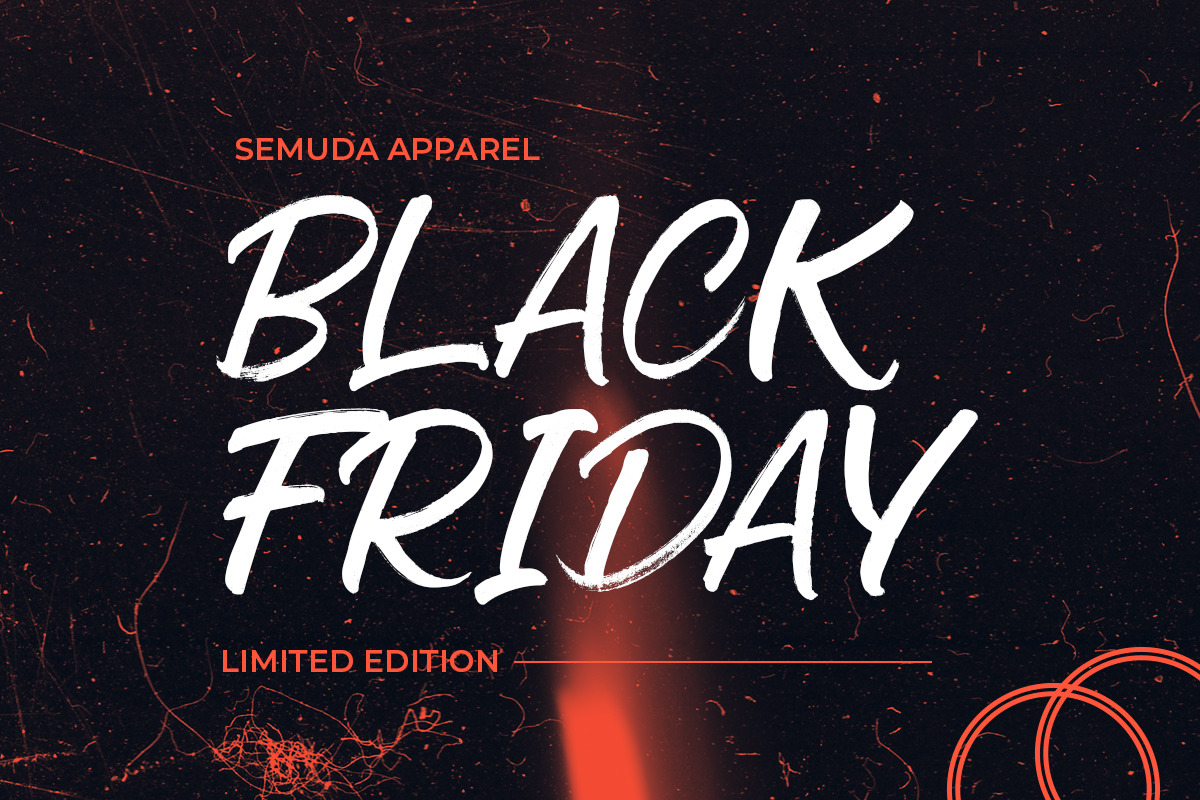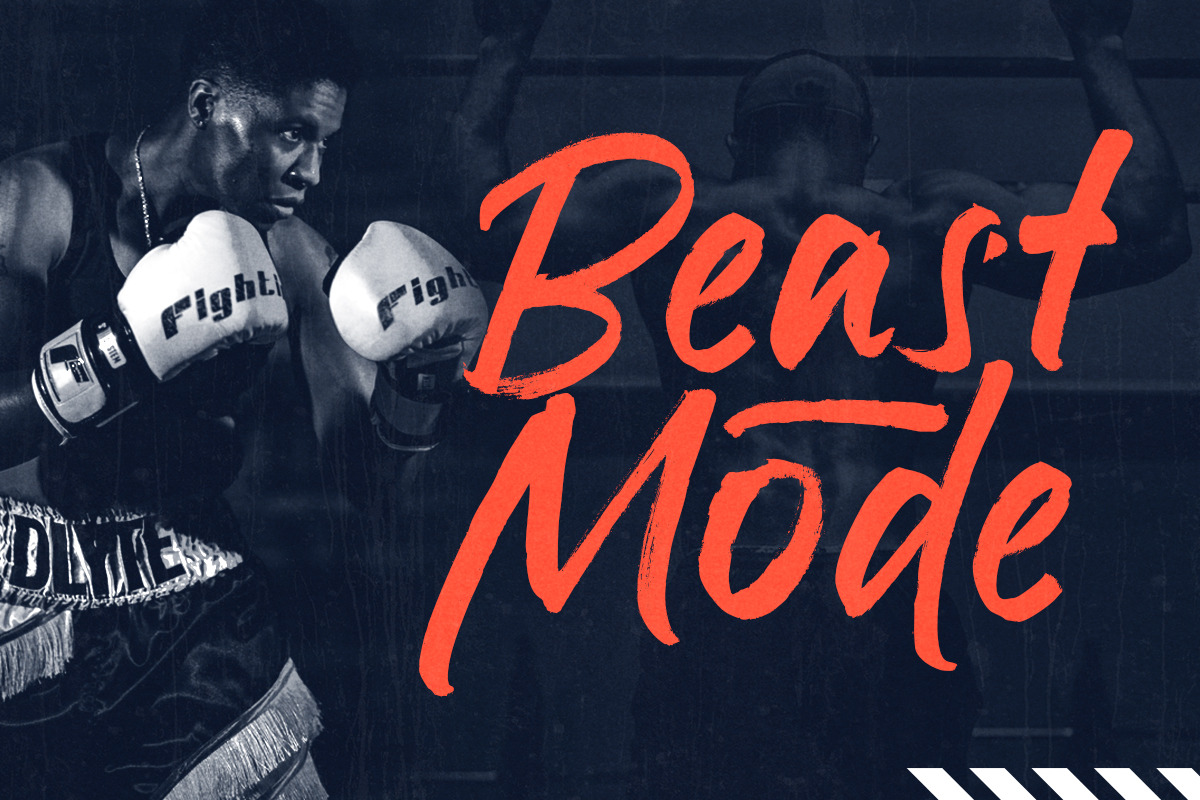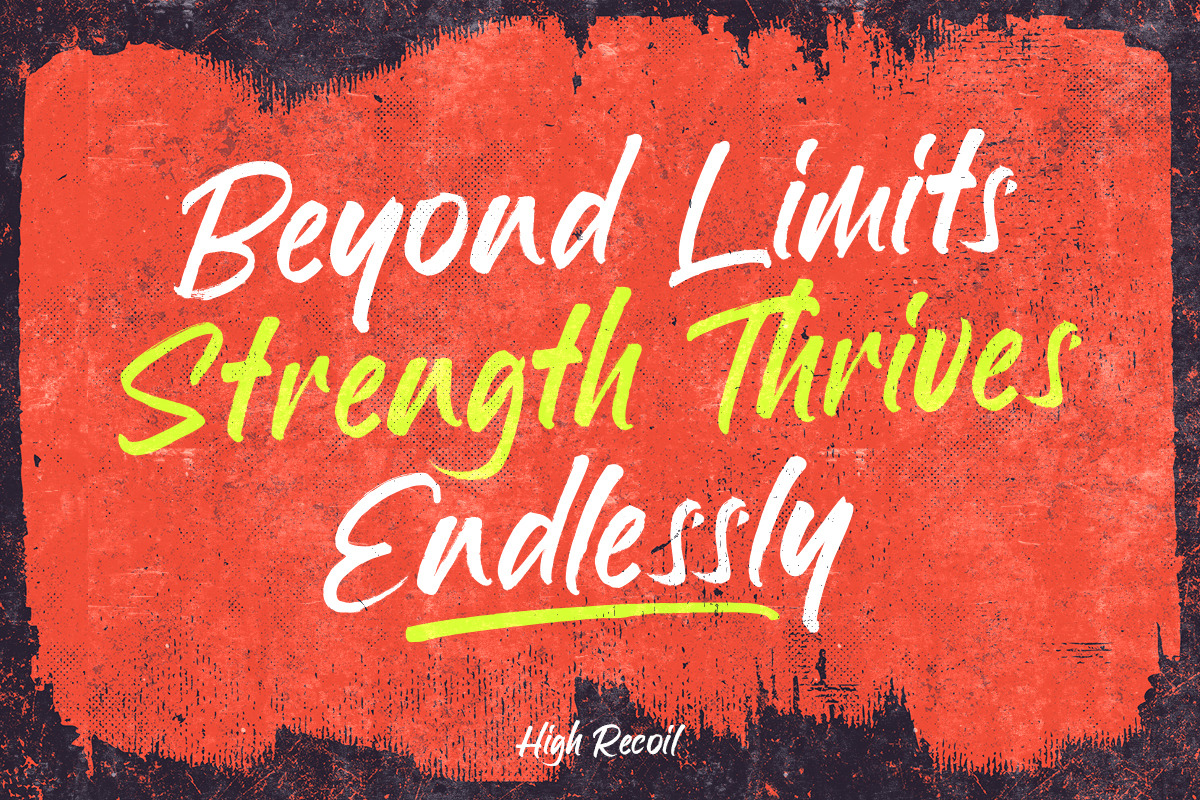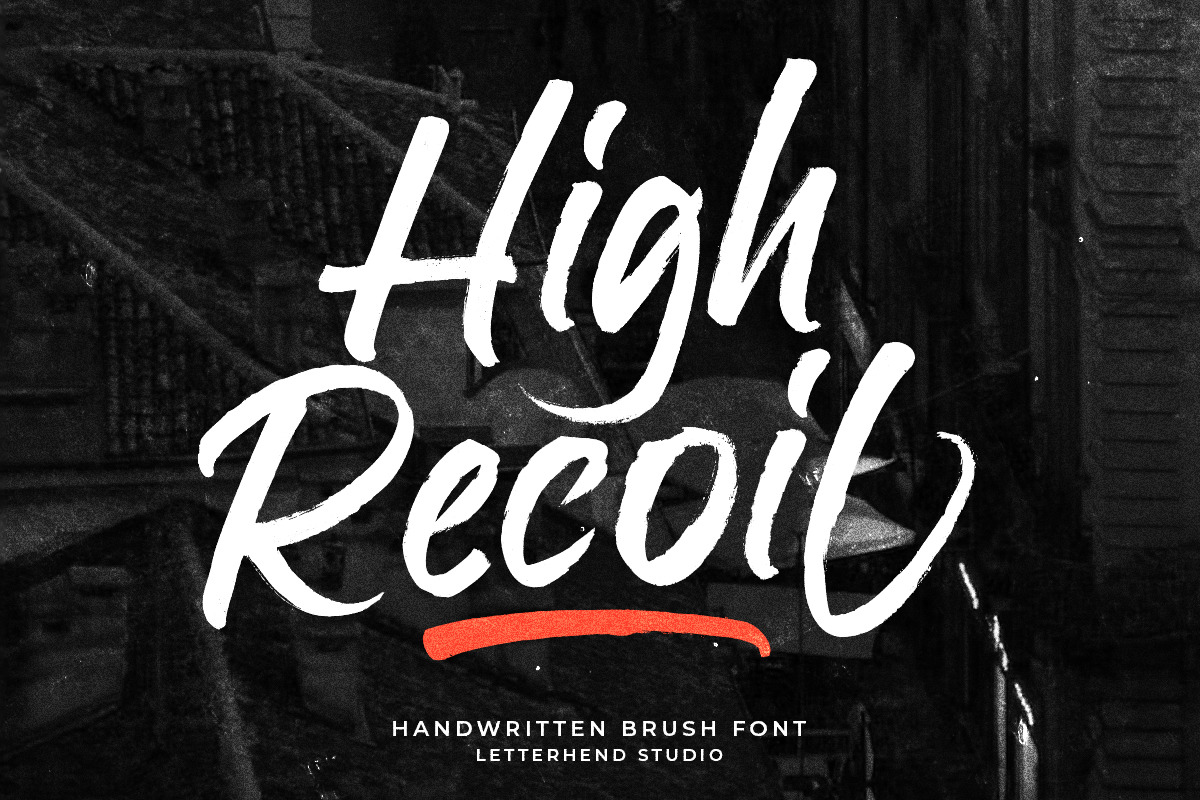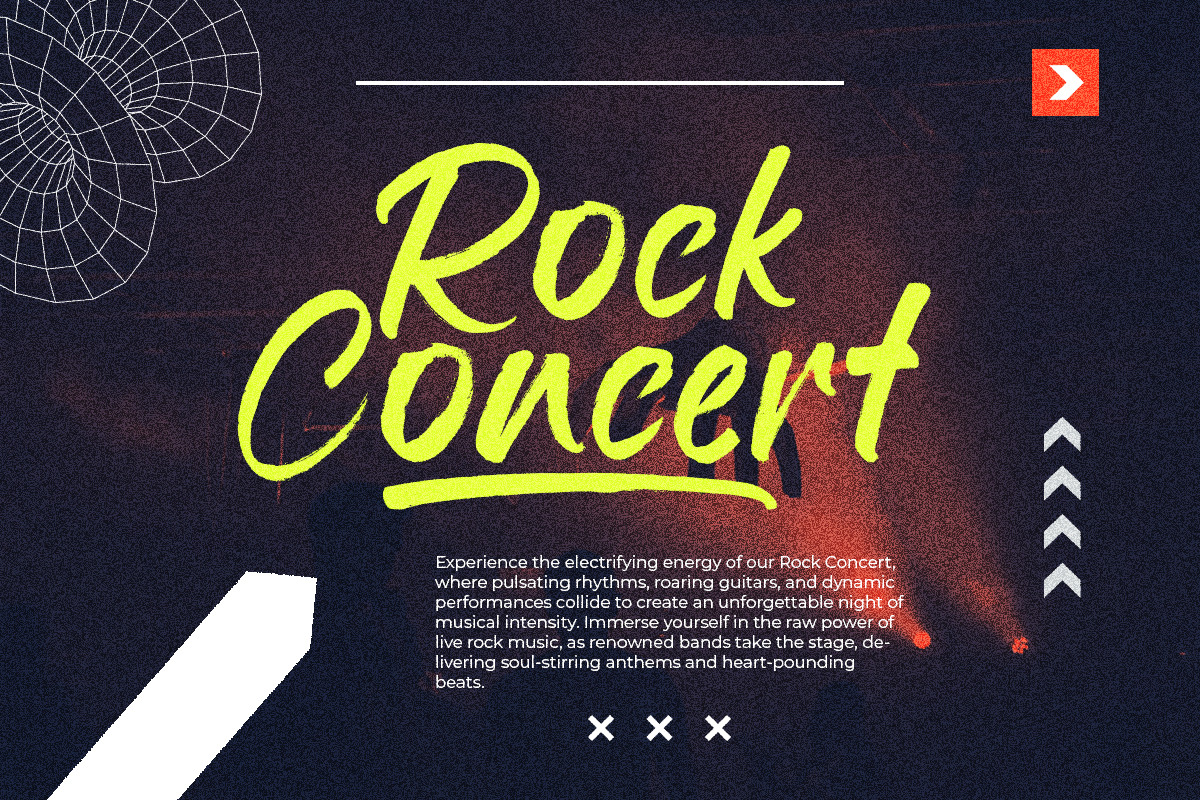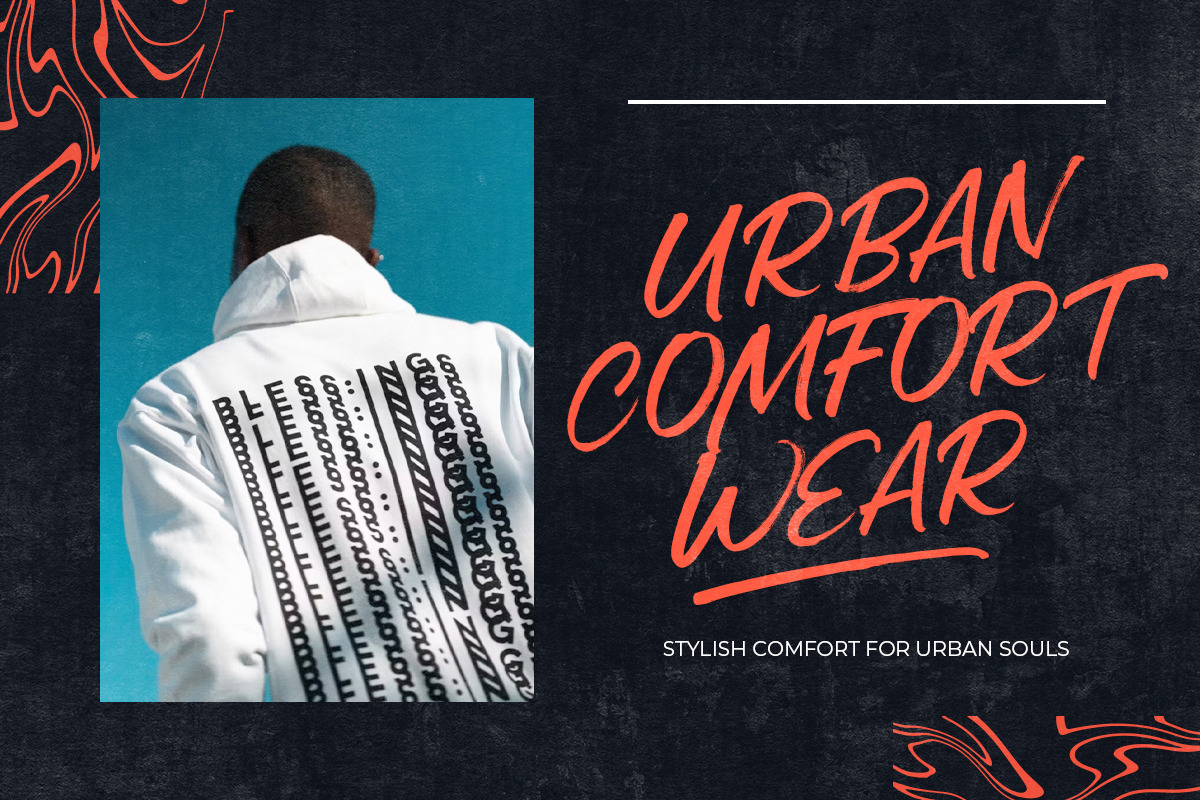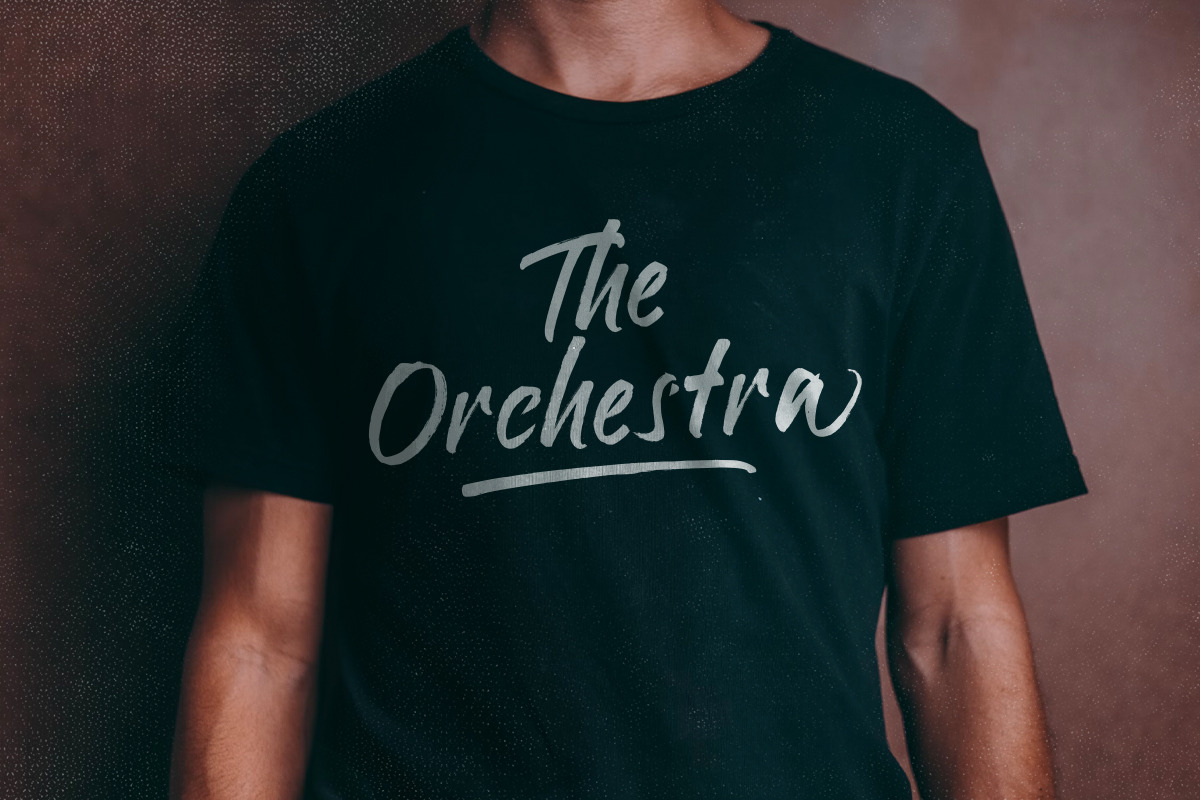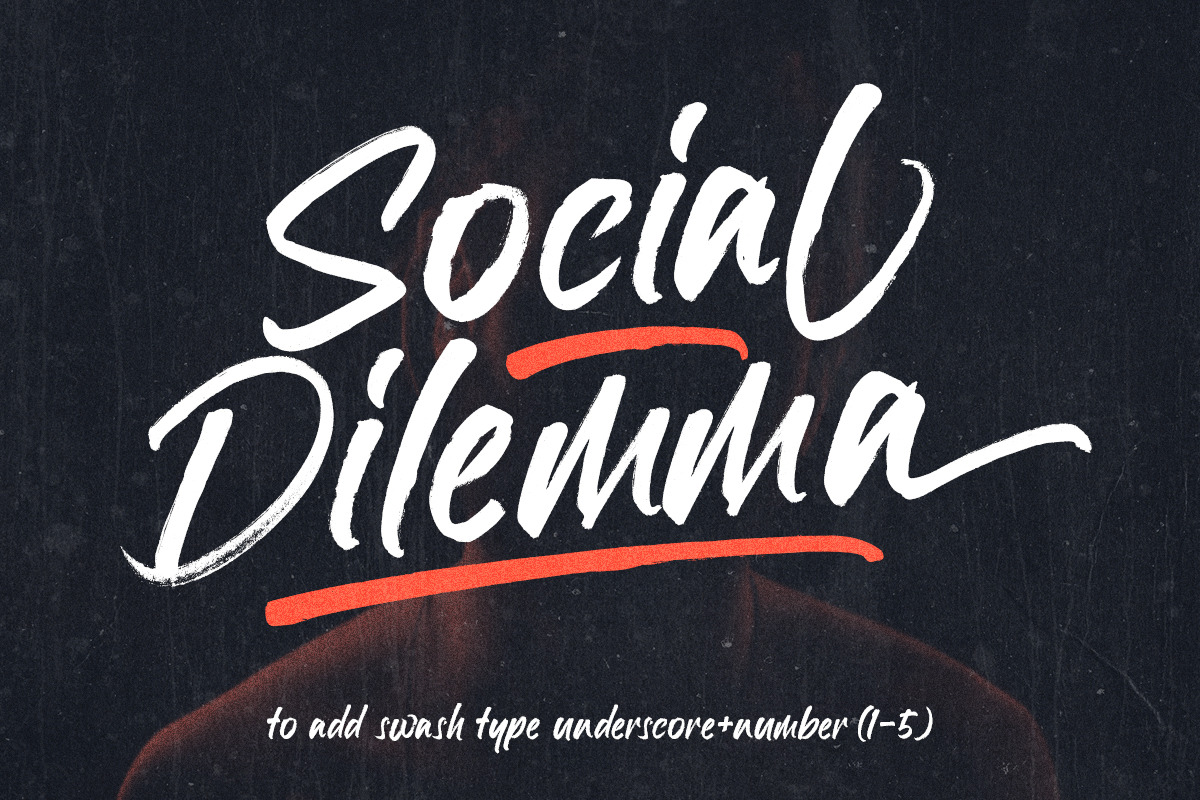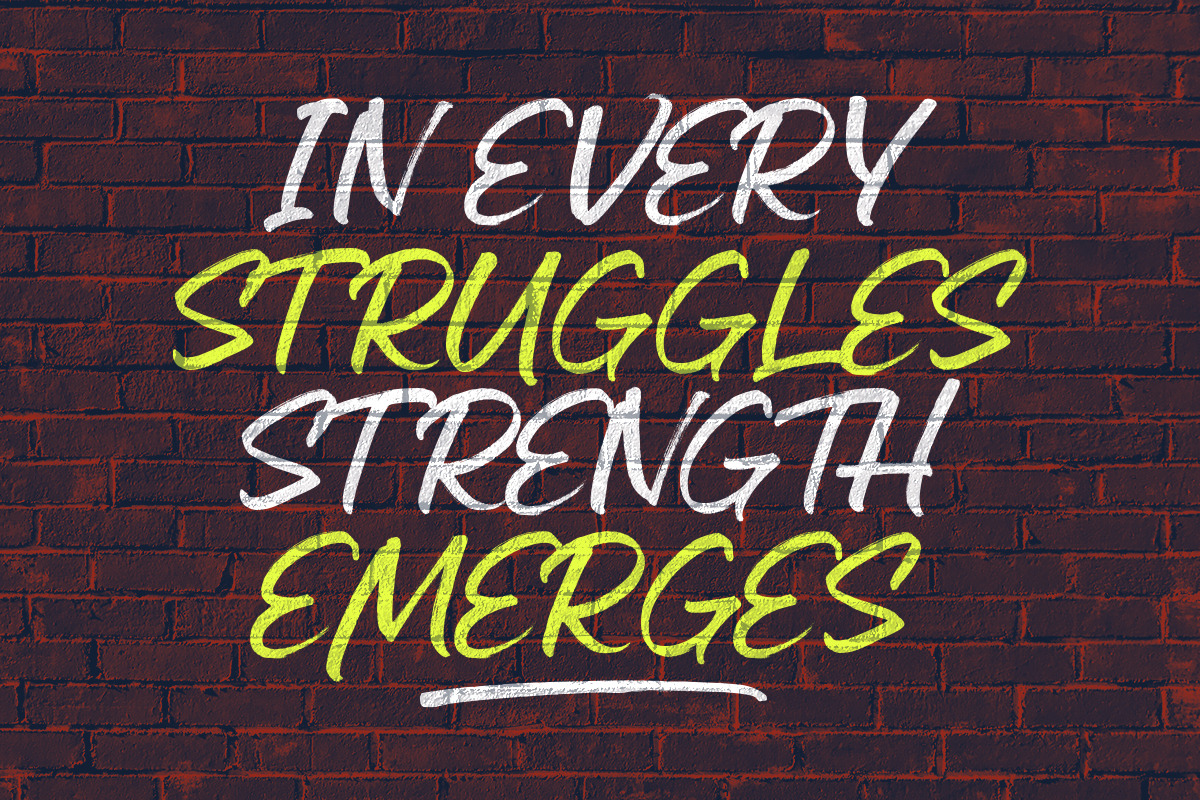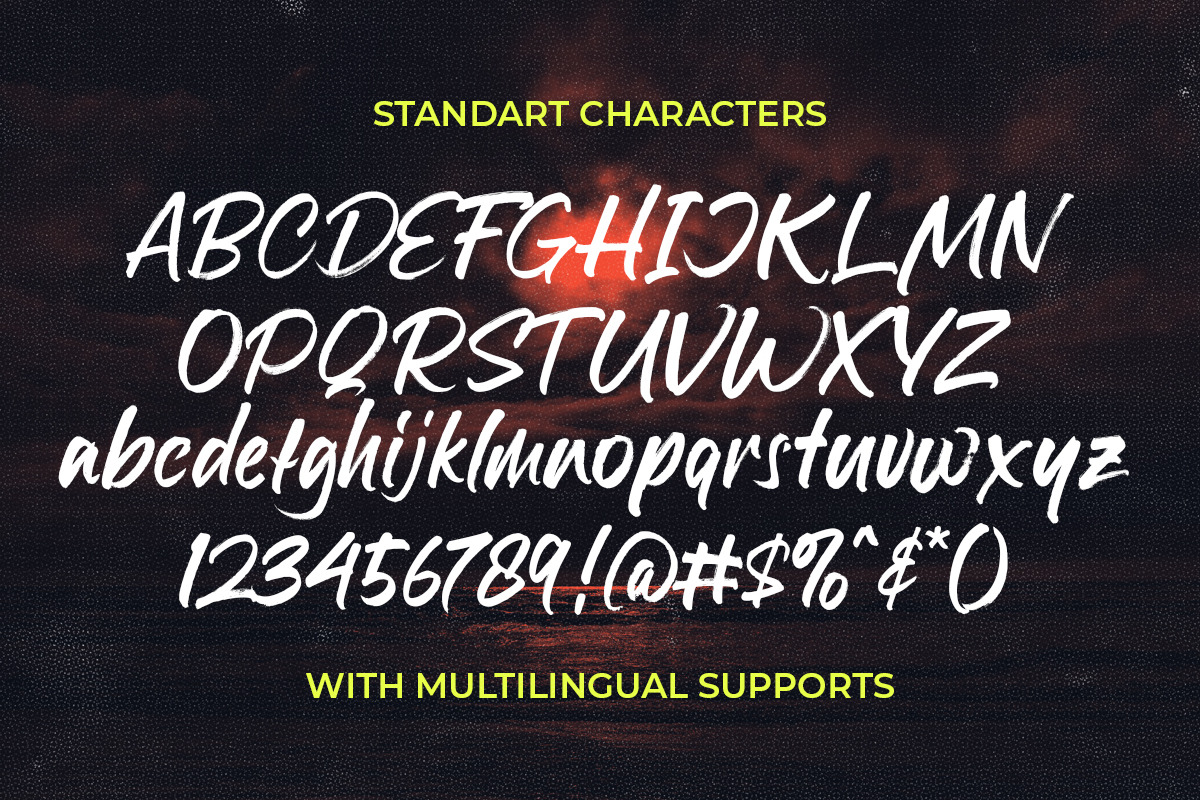
High Recoil - Handwritten Brush Font
High Recoil is a rough handwritten brush script with organic textured. This font is suitable to be applied especially in logo, and the other various formal forms such as invitations, labels, logos, magazines, books, greeting / wedding cards, packaging, fashion, make up, stationery, novels, labels or any type of advertising purpose.